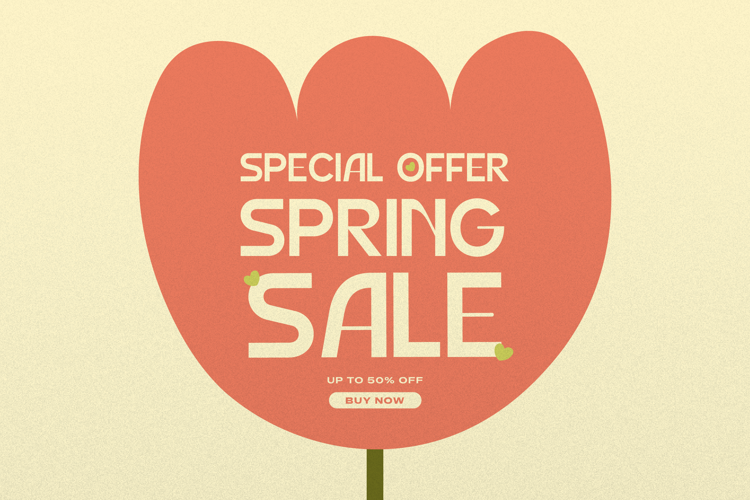
Nemilar Font
Nemilar | Display Sans Serif, is suitable for any projects such as: logos, branding projects, homeware designs, product packaging, mugs, quotes, posters, shopping bags, t-shirts, book covers, name card, invitation cards, greeting cards, label, photography, watermark, special events, and all your other lovely projects that need a Sans Serif taste.